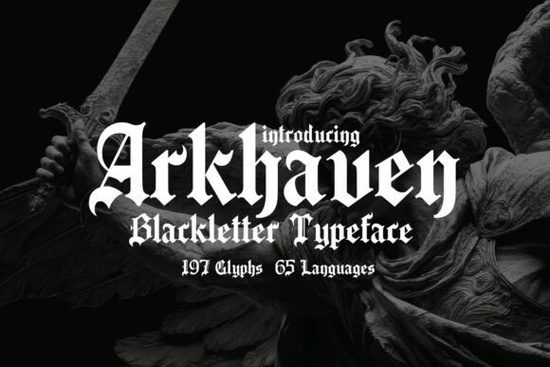
Arkhaven Font is a gothic blackletter typeface inspired by Old English manuscripts and cathedral inscriptions. If you're working on a project that needs a medieval, spiritual, or darkly elegant look, this font brings a visual weight that's difficult to replicate. It includes 197 glyphs, supports 65 languages, and works across a wide range of design applications from book covers to craft projects.
Here's what you need to know about using it, who it's best for, and how it compares to other gothic typefaces.
What Exactly Is a Blackletter Font?
Blackletter fonts originated in 12th-century Europe and were used in religious manuscripts, legal documents, and royal correspondence. The style is defined by dense strokes, sharp angles, and ornate detailing. You've likely seen it on newspaper mastheads, tattoo designs, metal band logos, and historical fiction covers.
Despite being centuries old, blackletter typefaces remain popular in modern design. They signal tradition, authority, and artistry all at once. You can read more about the blackletter style's history if you want deeper context on where these letterforms come from.
Arkhaven takes this tradition and refines it. Its serifs are clean, its curves are ornate without being fussy, and the contrast between thick and thin strokes gives it a dramatic but readable appearance.
What Can You Actually Use Arkhaven For?
This typeface is versatile enough for many creative projects. Here are some common uses:
- Fantasy and historical book covers It pairs naturally with dark fiction, epic fantasy, and period stories.
- Gothic logos and branding Tattoo studios, medieval-themed shops, and craft beverage brands use blackletter styling effectively.
- Album and poster artwork Particularly for metal, classical, or dark ambient music.
- Event invitations Formal or vintage-themed events benefit from this kind of lettering.
- Print-on-demand products T-shirts, wall art, mugs, and posters with gothic or medieval aesthetics.
- Craft and DIY projects Vinyl decals, stencils, scrapbooking, and handmade home décor.
How Does Arkhaven Compare to Other Gothic Fonts?
The blackletter category is crowded, but quality varies a lot. Some fonts look outdated or sacrifice readability for style. Others don't include enough glyphs for international use.
Arkhaven handles both concerns well. Individual letterforms stay distinct even at smaller sizes, and the 197-glyph set covers uppercase, lowercase, numerals, punctuation, and special characters. Language support across 65 languages means you won't hit a wall on multilingual projects.
For comparison, Black Ink Font offers a bolder, more utilitarian blackletter look. If you want something with a rawer, more aggressive edge, Nightmare Gothic Font leans into that territory. And Blistao Font brings its own interpretation of gothic lettering that's worth exploring.
Arkhaven sits on the more elegant end of the spectrum. If your project needs power with a sense of refinement, it's a strong fit.
What Fonts Pair Well with Arkhaven?
Blackletter typefaces are display fonts they work best at larger sizes for headings, logos, and titles. For body text or supporting copy, pair them with something simpler:
- Classic serif fonts like Garamond or Georgia create a cohesive, traditional feel.
- Clean sans-serif fonts like Helvetica or Open Sans offer modern contrast.
- Script fonts can work as decorative accents, but use them sparingly.
Avoid combining two blackletter fonts in the same design. It creates too much visual competition. Let Arkhaven be the focal point and keep everything else understated.